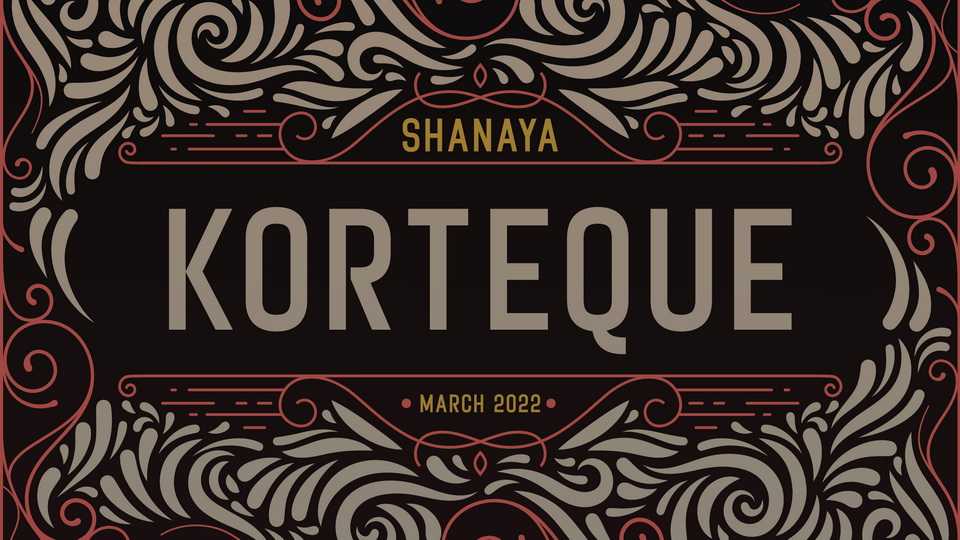
Download Korteque font, a powerful modern typeface that looks like a king. Korteque has a striking impression that arises in every letter, symbol and number that is arranged in the
Designer: Shanaya Creative